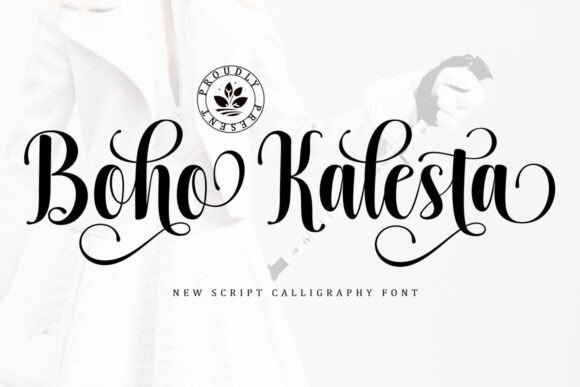
Boho Kalesta Font
About the Boho Kalesta Font
Presenting Boho Kalesta Font, a unique and stylish typeface that will make your work stand out. Boho Kalesta is an elegant script font with a contemporary atmosphere and impeccable form, inspired by timeless classic calligraphy. Not too thin and not too thick, balanced and varied, this font was designed to enhance the beauty of your projects.
Boho Kalesta excels in applications requiring a touch of refined elegance, such as wedding invitations, logos for boutique brands, or short-form editorial pieces. Its balanced forms make it suitable for headlines, short quotes, and packaging design where readability at slightly larger sizes is prioritized. However, it’s less effective for body text or UI elements due to its script nature.
Pairing Boho Kalesta with a clean sans-serif like Montserrat or a geometric sans-serif like Futura creates a sophisticated contrast. For a warmer feel, consider pairing it with a serif font such as Playfair Display or Lora. These pairings offer visual balance and prevent the design from feeling overly ornate or cluttered.
The font projects a sophisticated yet approachable personality, leaning toward elegance without being overly formal. Its contemporary feel makes it versatile for modern brands seeking a touch of timeless charm.
Boho Kalesta Font Usage Examples
Boho Kalesta Font Example